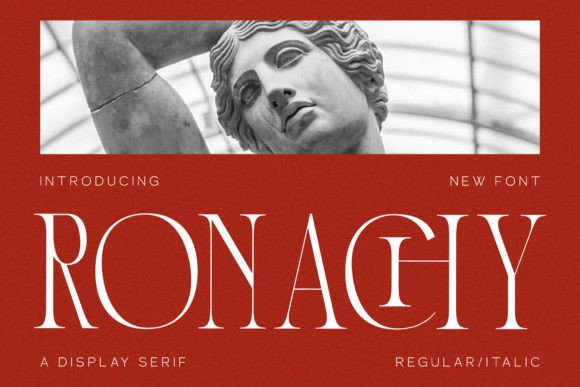
Unleash the Cinematic Flair with Ronachy: The Ultimate Font for Bold and Captivating Designs
In a world of digital storytelling, Ronachy emerges as a cinematic masterpiece, a font that embodies the grandeur of silver screen and the magnetic allure of the written word. This modern and classic serif typeface, meticulously crafted by the visionary minds at Storytype Studio, is not just a collection of letters; it's a gateway to a world of visual enchantment.
Born from the desire to capture the essence of cinematic brilliance, Ronachy dances across the screen with an air of sophistication and timeless elegance. Its carefully chiseled strokes exude a sense of luxury and opulence, making it the perfect choice for crafting unforgettable logos, book or movie titles, fashion statements, magazine headlines, and everything in between.
With Ronachy as your visual companion, you'll discover a universe where words take on a life of their own, captivating your audience with their undeniable charm. Whether you're a creative professional longing to leave an indelible mark or an aspiring artist yearning to unleash your inner storyteller, Ronachy is the font that will elevate your designs to new heights of brilliance.
Immerse yourself in the world of Ronachy and experience the transformative power of typography. Let your imagination soar, let your creativity flow, and let Ronachy guide you towards design masterpieces that resonate with the hearts and minds of your audience.